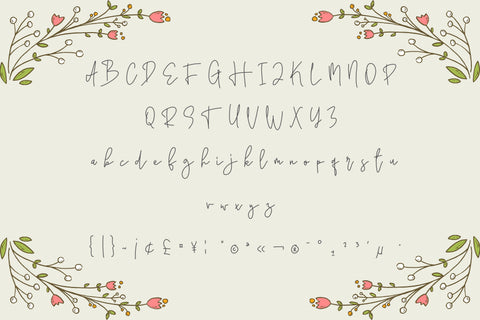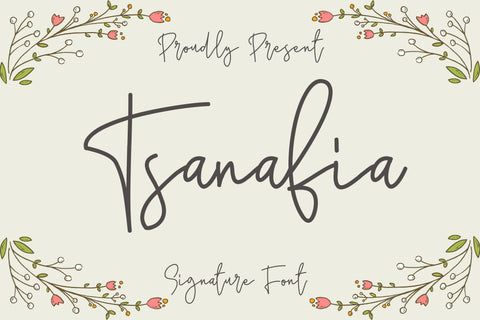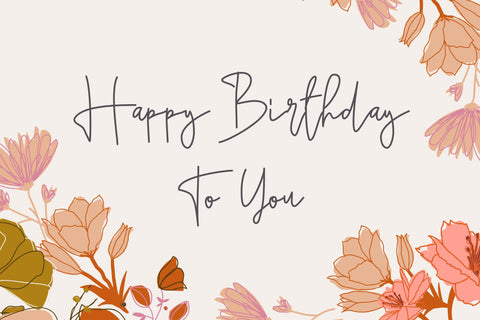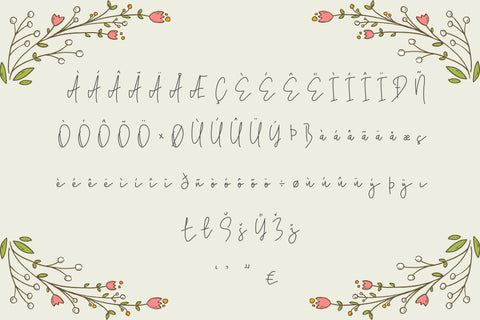
Tsanafia Font
Tsanafia is a stylish and delicate script font. It has a clean, thin and smooth vibe and it will be a hit for any design that you want to add it to. Fall in love with its incredibly versatile style and use it to create spectacular designs!